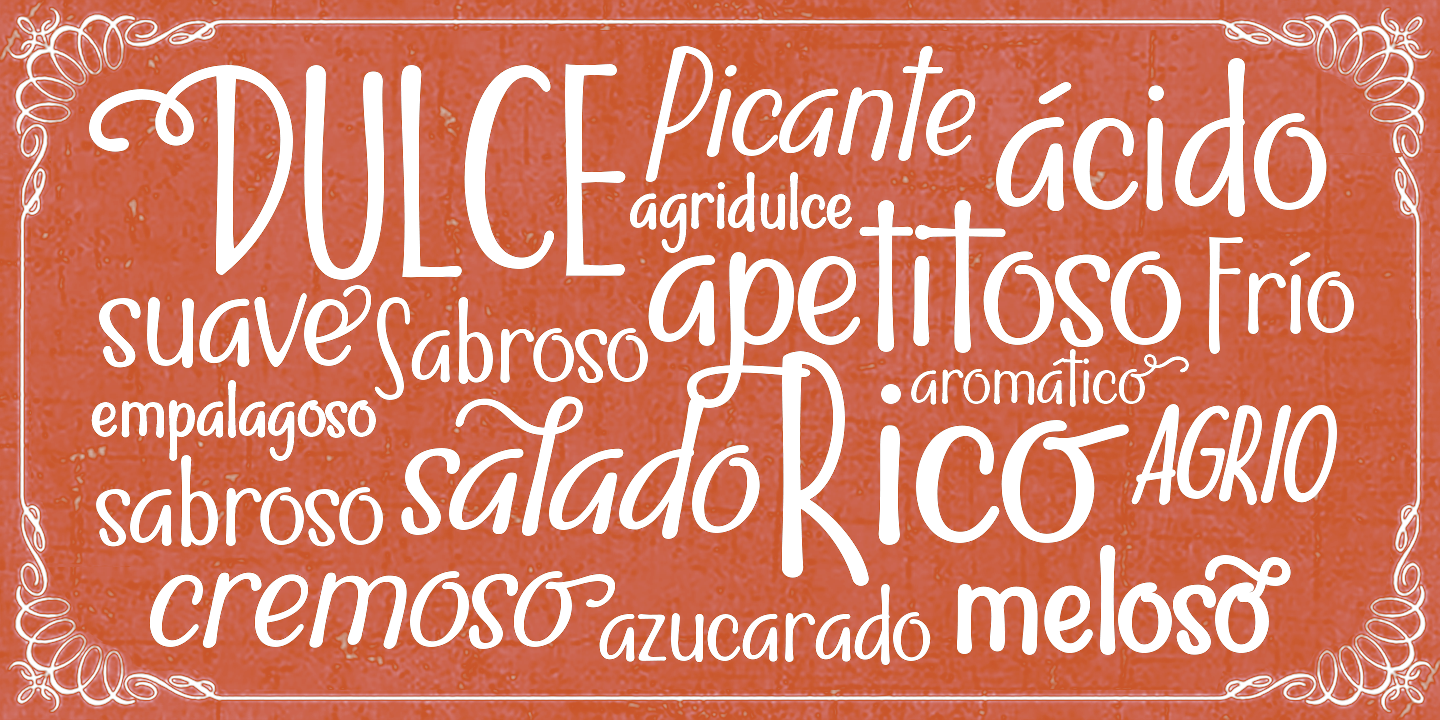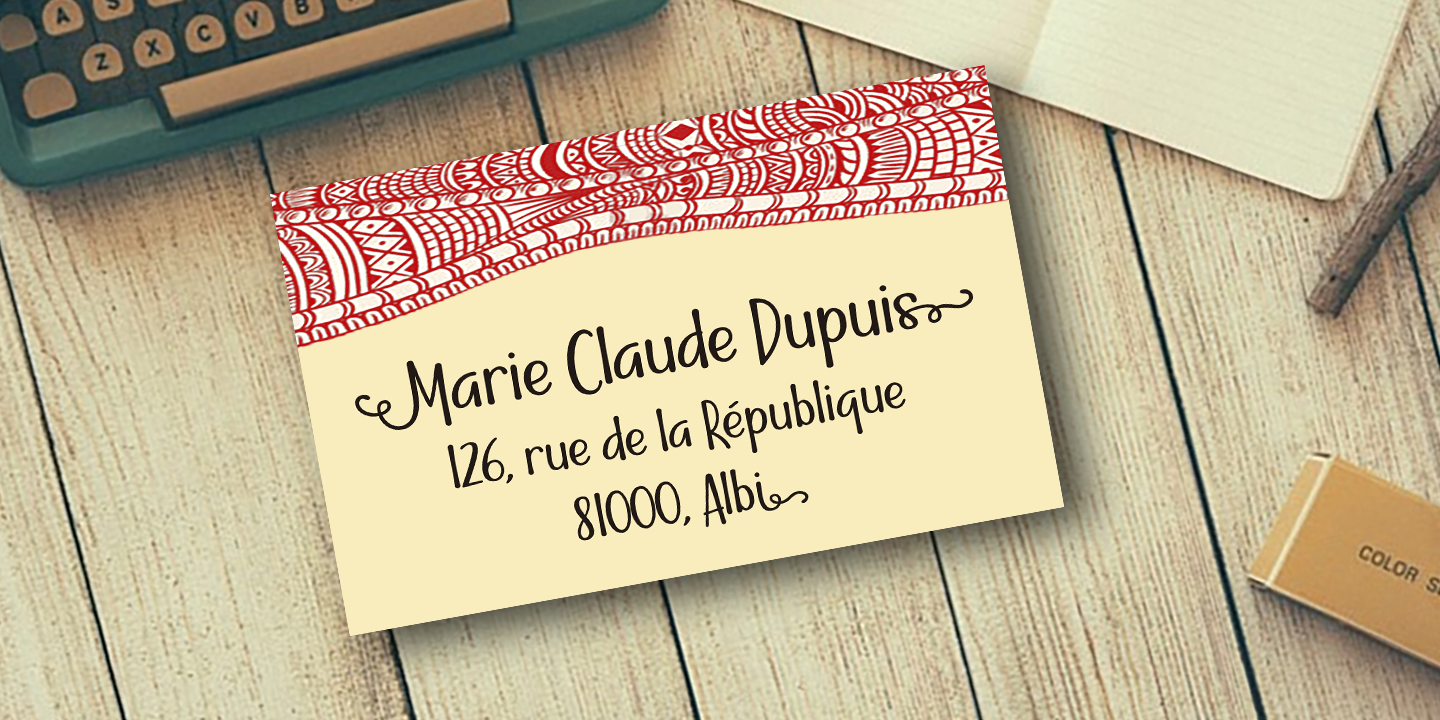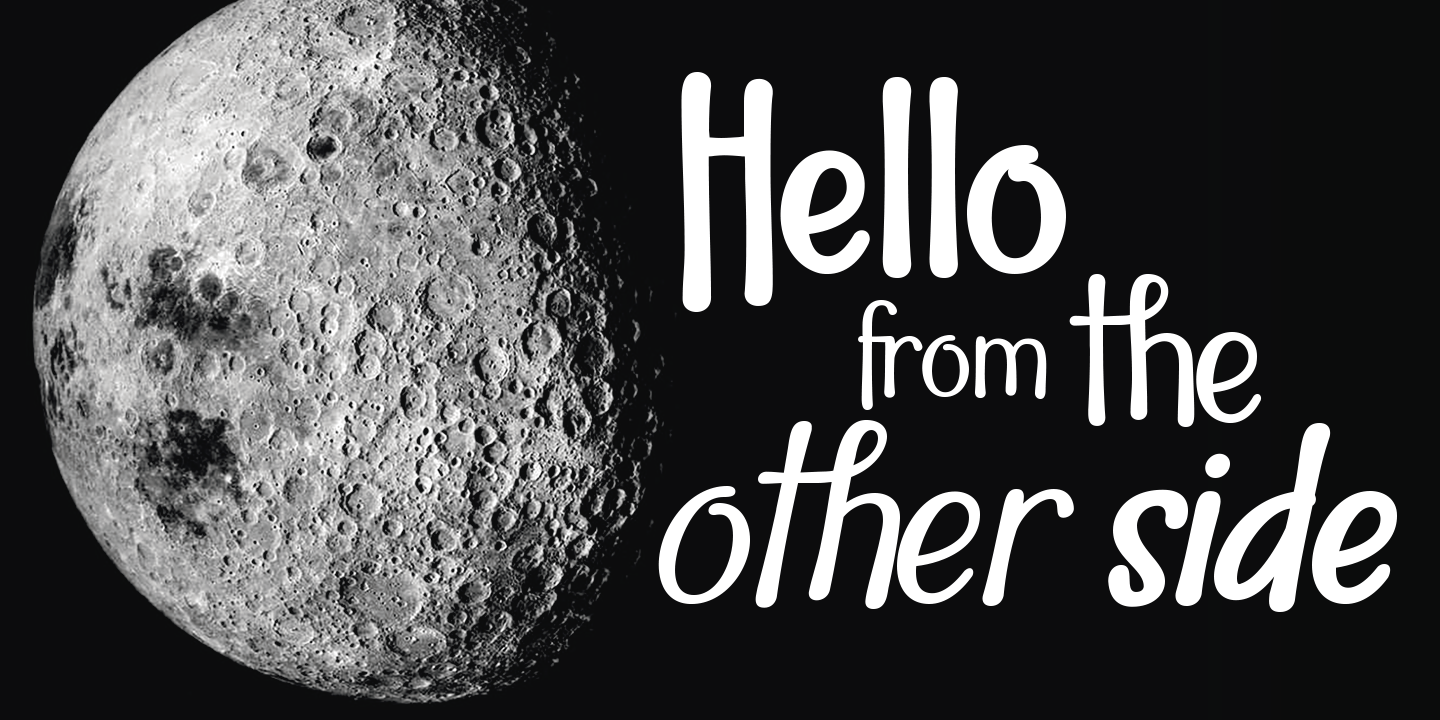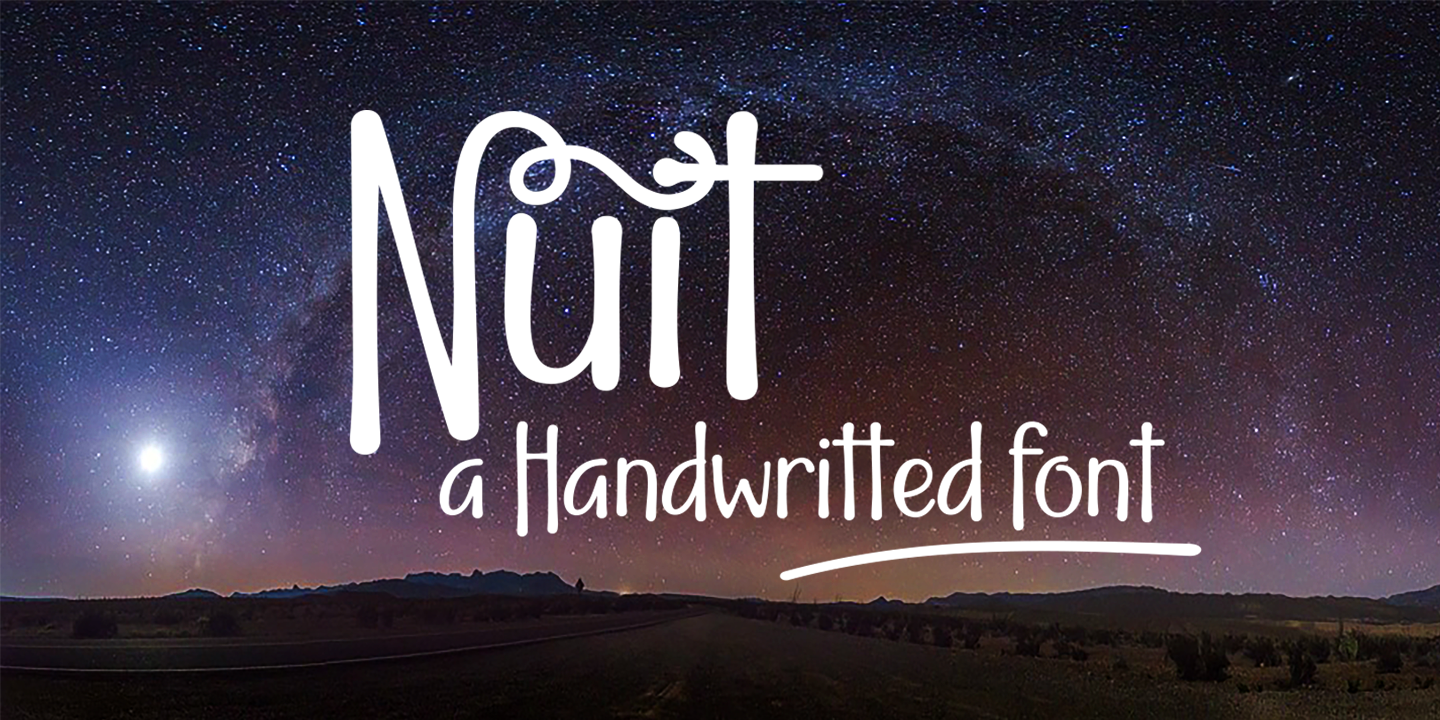
Nuit
A Charming & Expressive Handwritten Font
Nuit is a charming handwritten font family with a vibrant, expressive personality. Its playful bounce and intentional irregularities give every word a natural, flowing rhythm, while the contrast between thick and thin strokes creates a beautifully harmonious look on the page.
4 Weights & Rich OpenType Features
This versatile family includes Nuit Regular, Nuit Italic, Nuit Bold, and Nuit Bold Italic—each packed with powerful OpenType features to elevate your typography. You’ll find stylistic alternates, swashes, ligatures, up to four stylistic sets per letter, and both initial and terminal forms in upper- and lowercase. A set of elegant ornaments and full Central European language support make Nuit an even more flexible creative tool. These features can be accessed through OpenType-aware applications or by using your character map to copy and paste alternate glyphs into any editor, ensuring you can achieve expressive, polished results wherever you work. Nuit also supports beautifully rendered all-caps settings.
Perfect for Weddings & Lifestyle Branding
Nuit shines on wedding invitations, greeting cards, logos, posters, labels, t-shirt designs, business cards, and more. It’s perfect for ink or watercolor projects, fashion layouts, magazines, packaging, menus, book covers—anything your imagination can dream up. With Nuit, your designs feel personal, artistic, and effortlessly elegant.